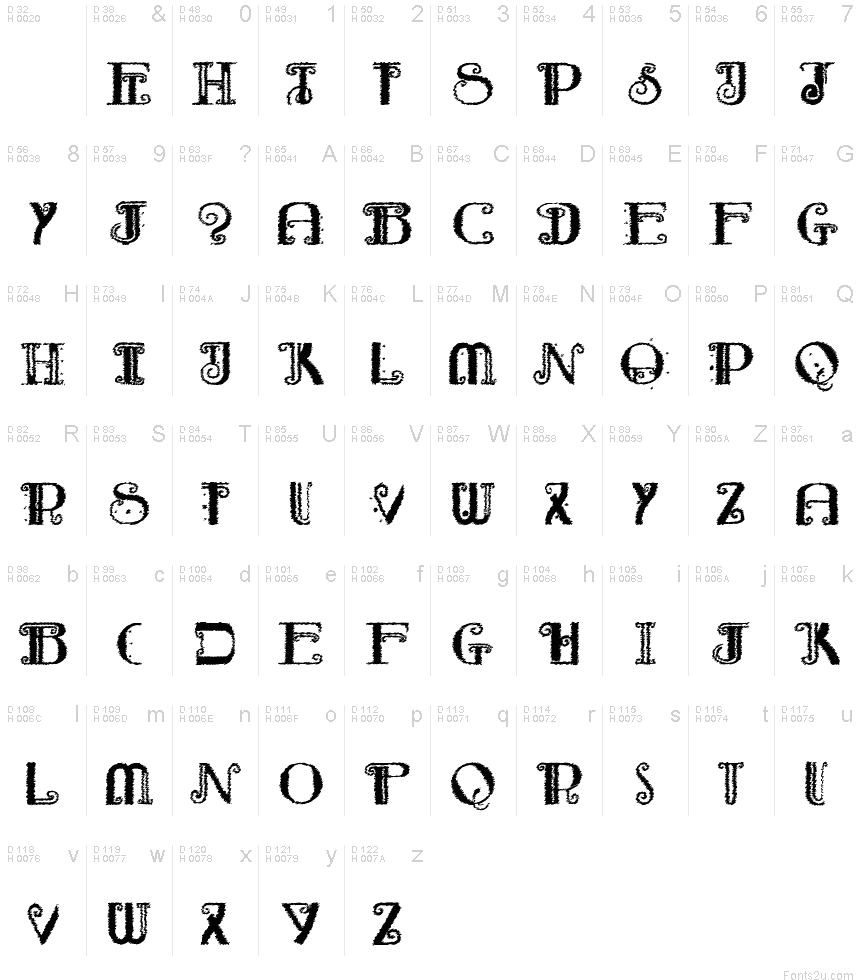
Rebimboca Trash by Paulo W of Intellecta Design is a free eroded old-school display font with ornate, carnival-like capitals. Split strokes, curled tips, and scratchy gaps give the letters a weathered print-shop texture without hiding their elaborate construction.
On packaging, its distressed decoration can turn a label into vintage ephemera, especially for craft drinks or novelty goods. It also suits gig posters and theatrical event graphics, where the eccentric letter shapes can echo hand-cut borders and period illustration.
Rebimboca Trash Free is the free version by Intellecta Design. It is a non-commercial version with an unpublished set that differs from the original Rebimboca.